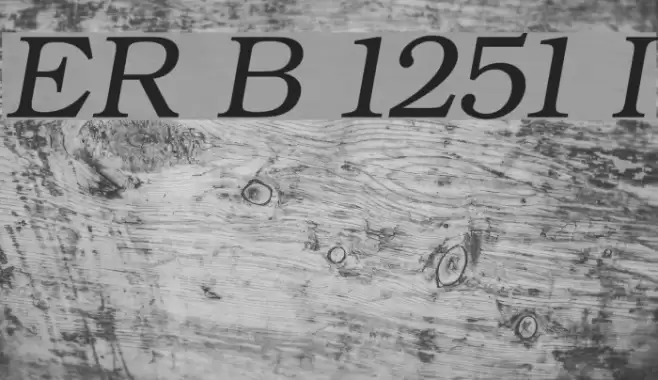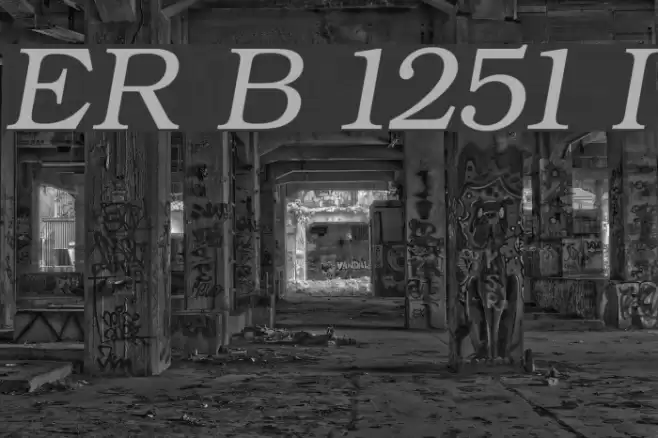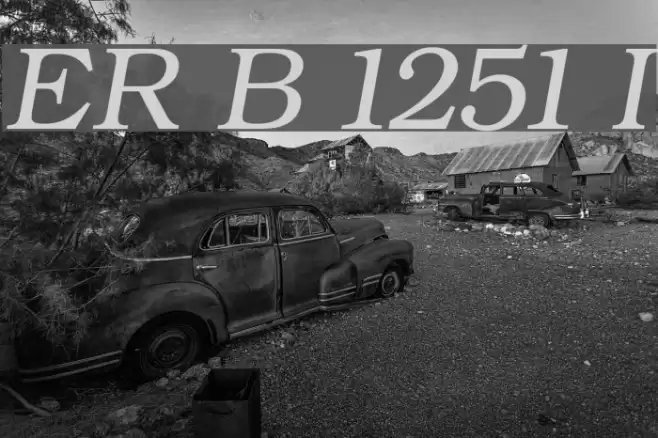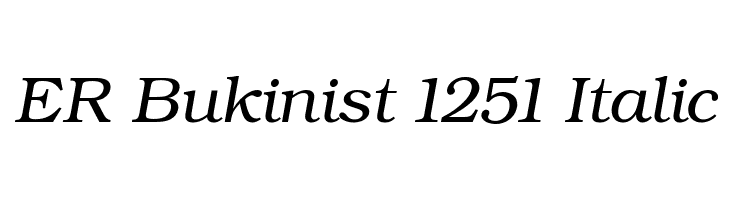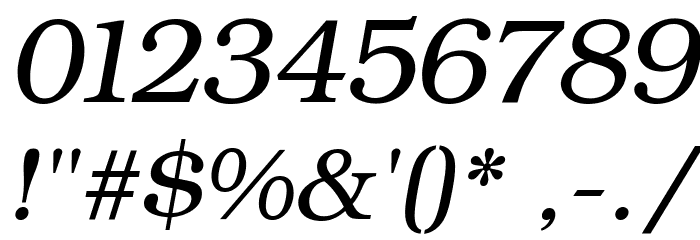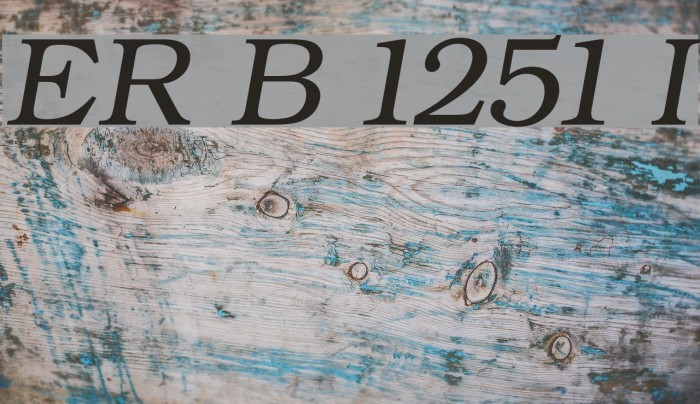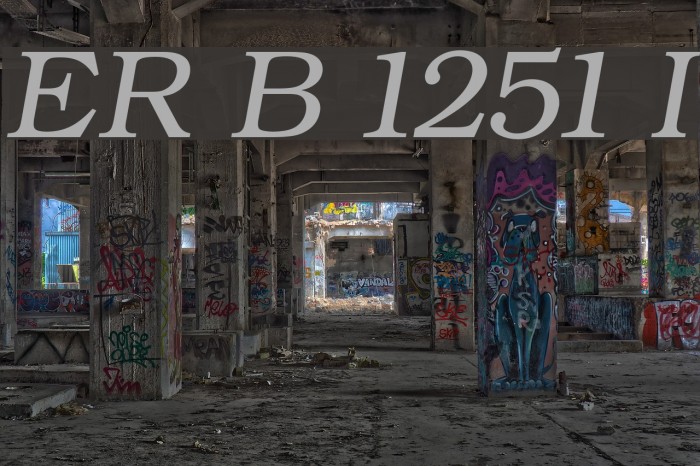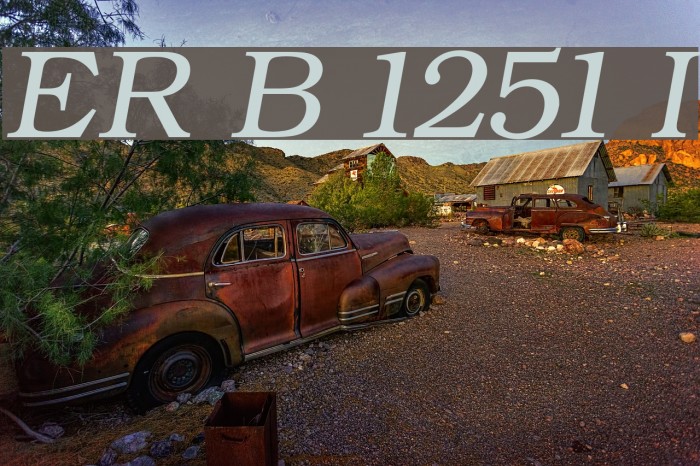
ER Bukinist 1251 Italic Font
ER Bukinist 1251 Italic Description
This font exhibits a classic serif style with a distinct italic slant, giving it an elegant and sophisticated appearance. The characters are well-defined with moderate contrast between thick and thin strokes, enhancing readability while maintaining a stylish flair. The uppercase letters are slightly taller than the lowercase, providing a balanced and harmonious look. The numerals are clear and consistent, and the special characters are designed to complement the overall aesthetic. The font's design is suitable for conveying a sense of tradition and formality.
Elegant serif font with an italic slant and moderate stroke contrast from Typewriter fonts.
- Proposed Projects: Ideal for formal invitations, editorial design, book covers, and branding materials that require a touch of elegance.
- Overall Style: Classic